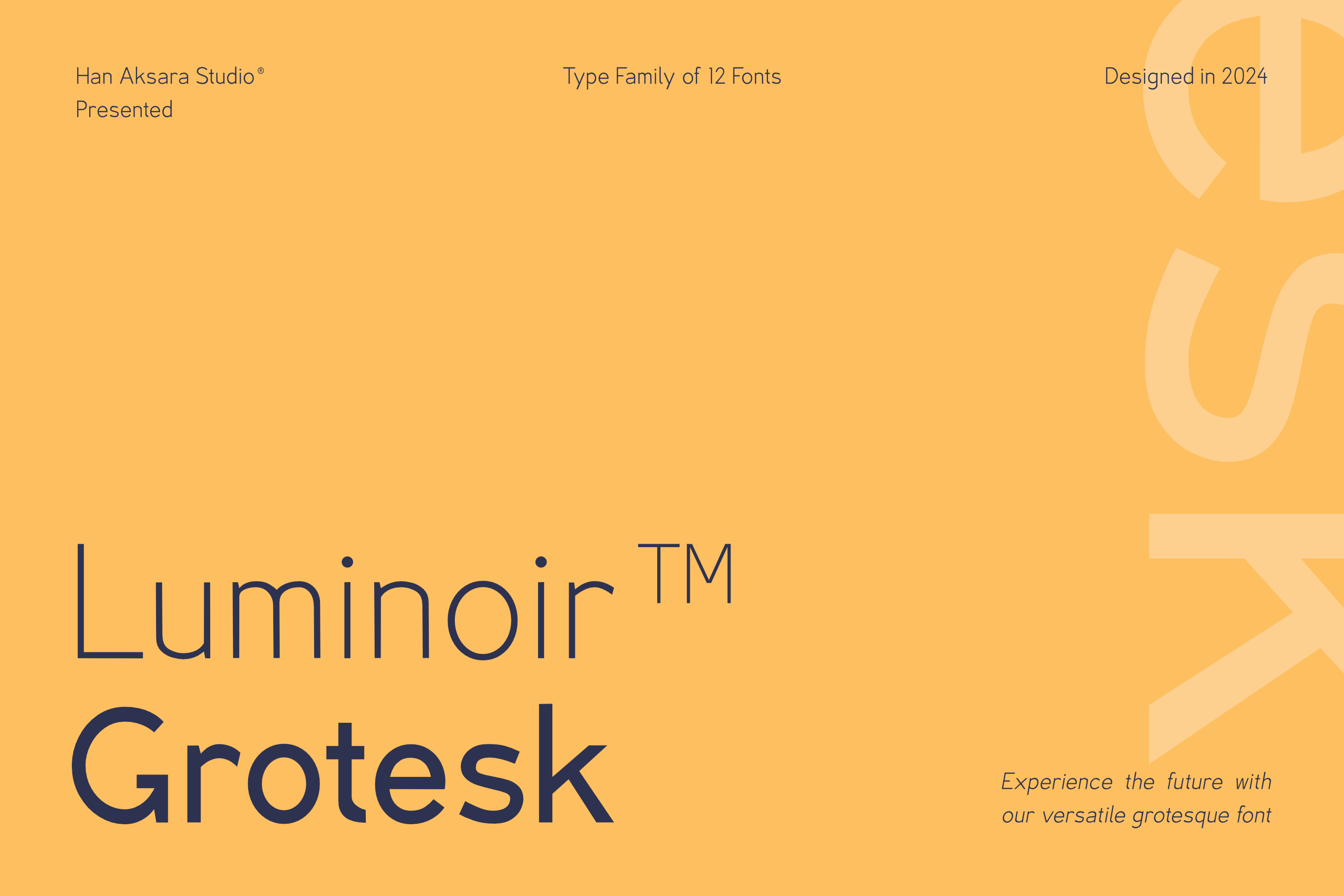
Luminoir Grotesk - Variable Font
Introducing Luminoir Grotesk, a modern variable sans-serif font that embodies versatility, readability, and luxury. Inspired by contemporary sans-serif fonts, Luminoir Grotesk offers a seamless blend of modernity with a touch of elegance, making it suitable for various design applications.
One of Luminoir Grotesk's distinctive features is its subtly tilted stem when joined with other letter parts, adding a futuristic edge without compromising the essence of a classic sans-serif font. This unique characteristic creates a sense of dynamism and innovation, making Luminoir Grotesk a perfect choice for forward-thinking design projects.
Designed primarily for body text, Luminoir Grotesk's versatility extends to posters, magazine layouts, logos, advertising, and more. Its sleek and sophisticated design ensures readability across different mediums and sizes, while the italic version exudes luxury and sophistication, adding a touch of tech-inspired flair.
The font family comprises six weights, ranging from Light to Extra Bold, each accompanied by oblique styles for added flexibility and creativity. With 216 glyphs currently available and future updates planned to include additional weights and glyphs, Luminoir Grotesk is poised to become even more versatile and comprehensive.
While OpenType features are currently in development, future updates will introduce ligatures, alternate characters, and numeral variations, enhancing the font's functionality and aesthetic appeal.
With support for 65 languages, including Afrikaans, French, Spanish, and Swedish, Luminoir Grotesk caters to a global audience, making it suitable for international design projects.
- Addition of Glyphs (Additional Accented Characters for broader language coverage, Alternative Characters, and several ligature characters)
- Refinement of Kerning (Feedback from buyers is appreciated for any shortcomings)
- Addition of OpenType features (Ligatures and Alternative Characters)
- Addition of weights (Thin, Hairline, and Black will be available)